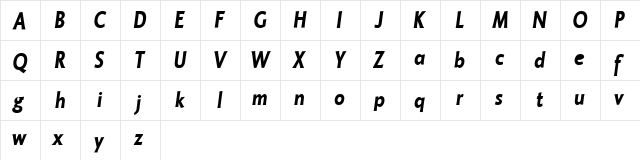
OctoneBETA Regular
Design Context for OctoneBETA Typeface
OctoneBETA offers clean, dependable letterforms without strong stylistic allegiance, making it a practical choice for designers who need flexibility.
Pro Tip: Use OctoneBETA in both headline and body roles to test its range before committing to a single application.